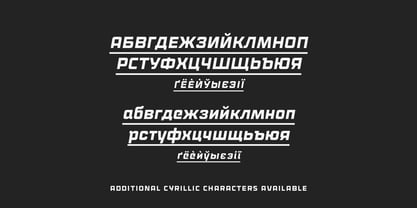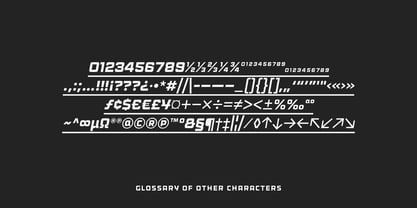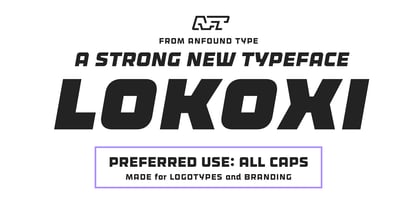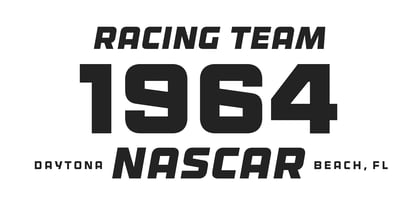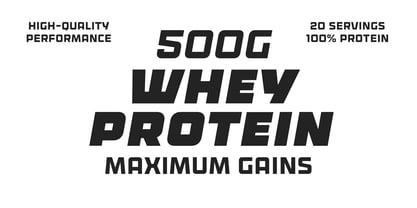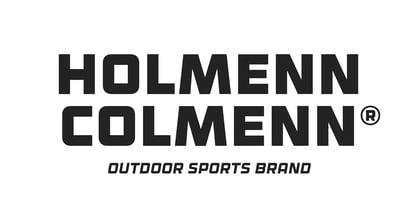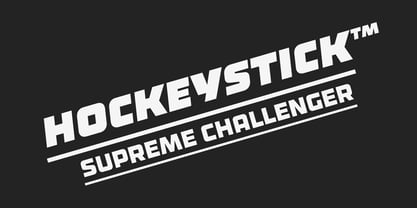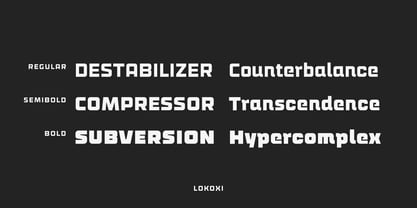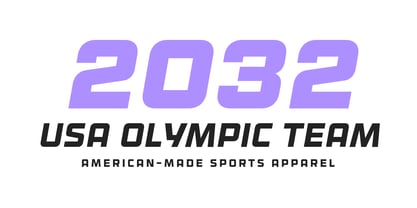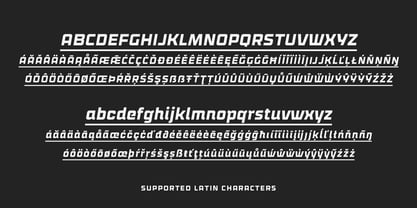
Lokoxi Pro
Die Schriftfamilie Lokoxi Pro wurde von Antero Nuutinen entworfen und von Anfound Type veröffentlicht. Lokoxi Pro enthält 12 Stile und Familienpaketoptionen. Mehr über diese Familie
Lokoxi is a bold low-contrast display typeface crafted to turn heads. Designed especially for striking logotypes, branding, and packaging, it brings a confident, contemporary edge to any visual identity. Heavy by nature and best used in all caps, Lokoxi is built to make a strong first impression.
The complete family includes roman, slanted italic, and rounded variants, along with alternate characters for the euro sign, registered and published marks, and German ß. The Pro version also adds basic Cyrillic support. With 380 glyphs plus 80 additional Cyrillic glyphs in the Pro version, bringing the total to 460 glyphs. Lokoxi is ready for everything from loud branding to standout packaging.
Give it a go and make some noise.
Designer: Antero Nuutinen
Foundry: Anfound Type